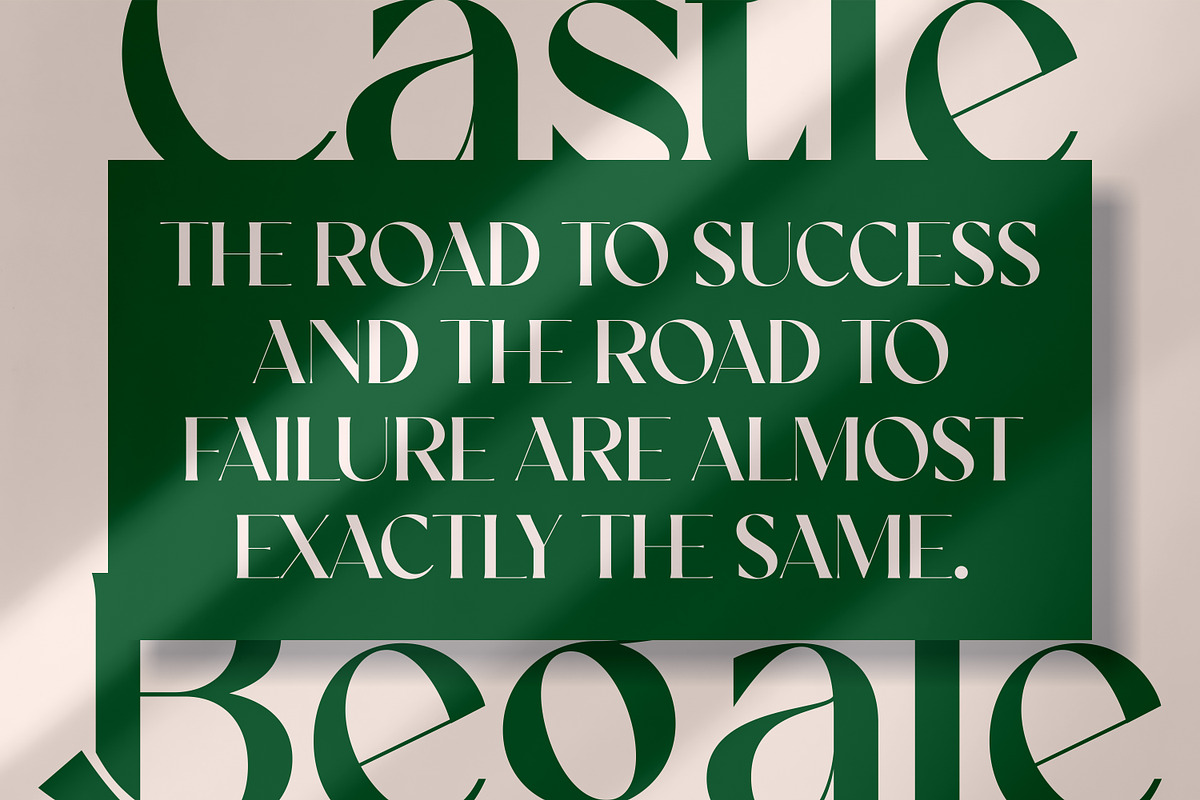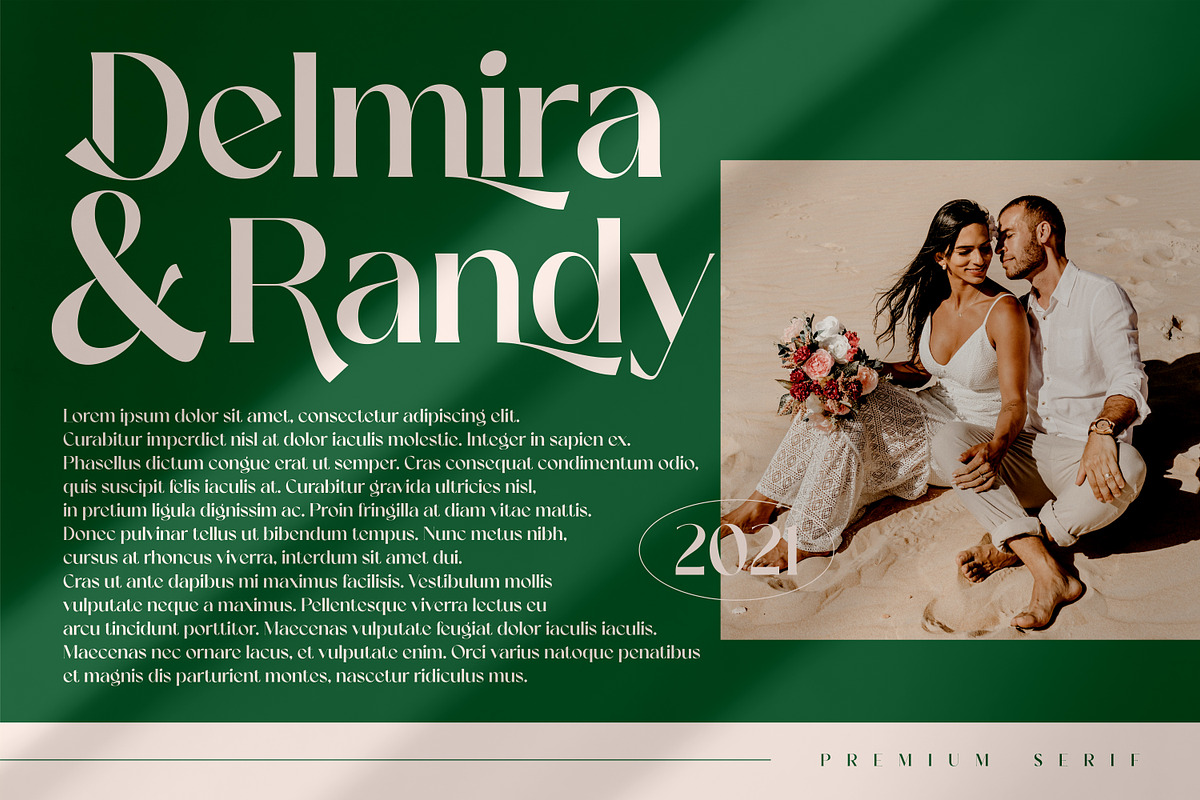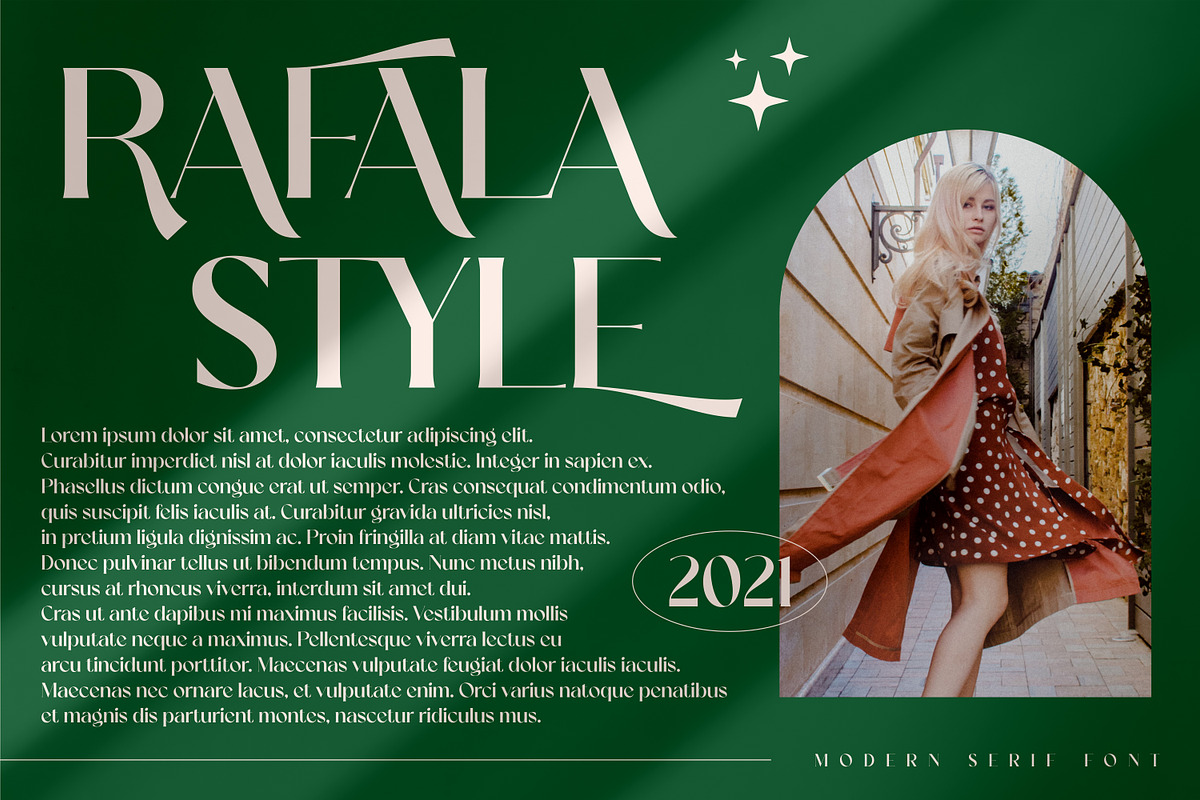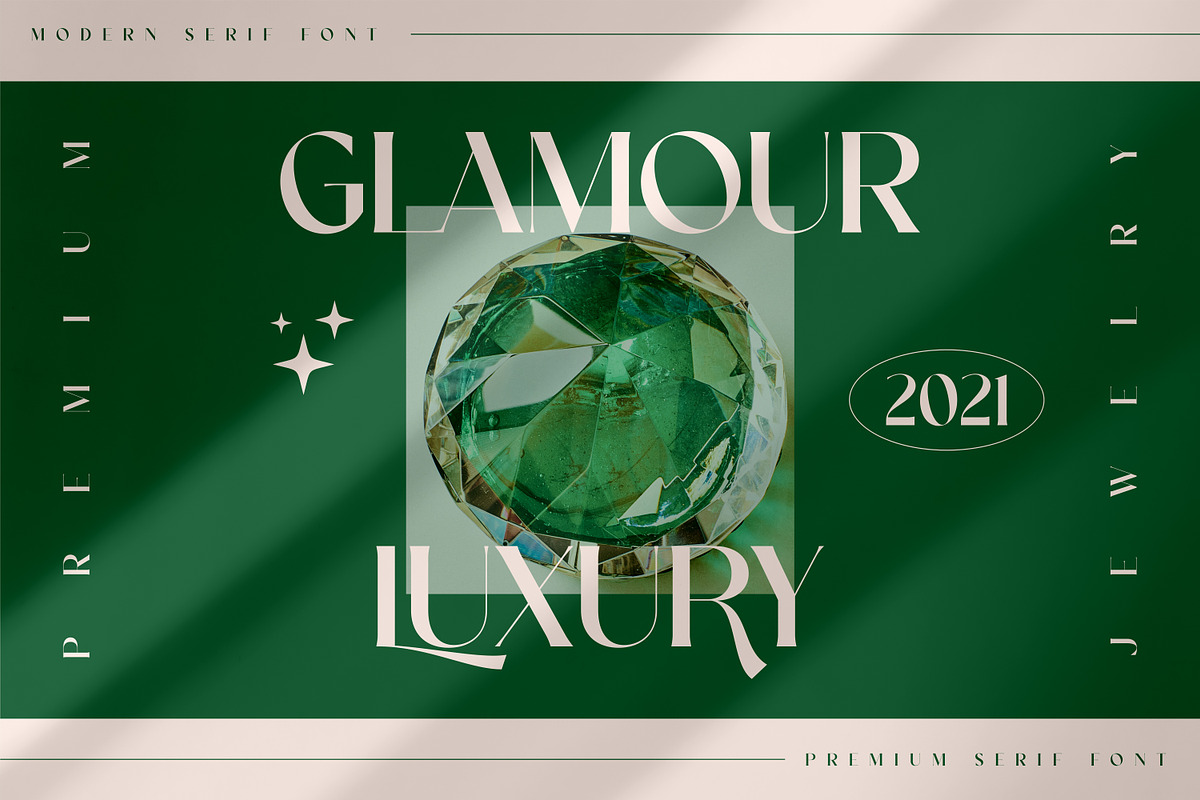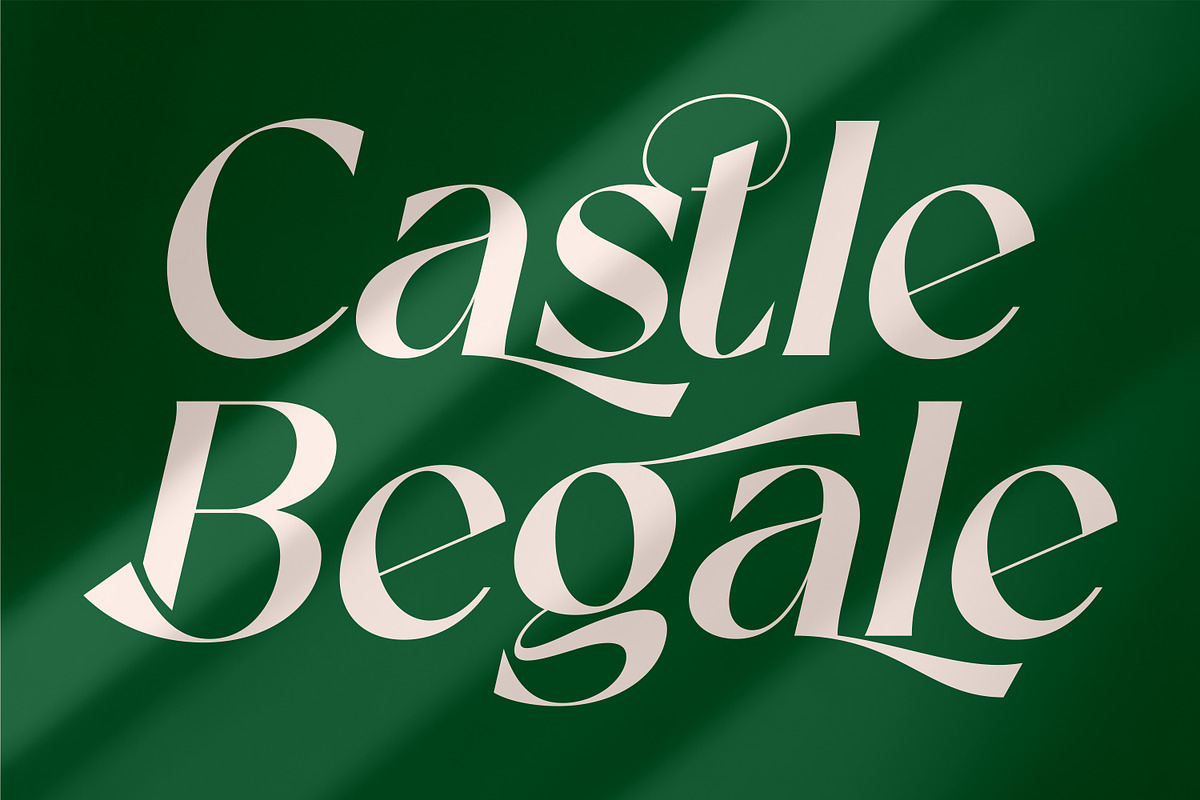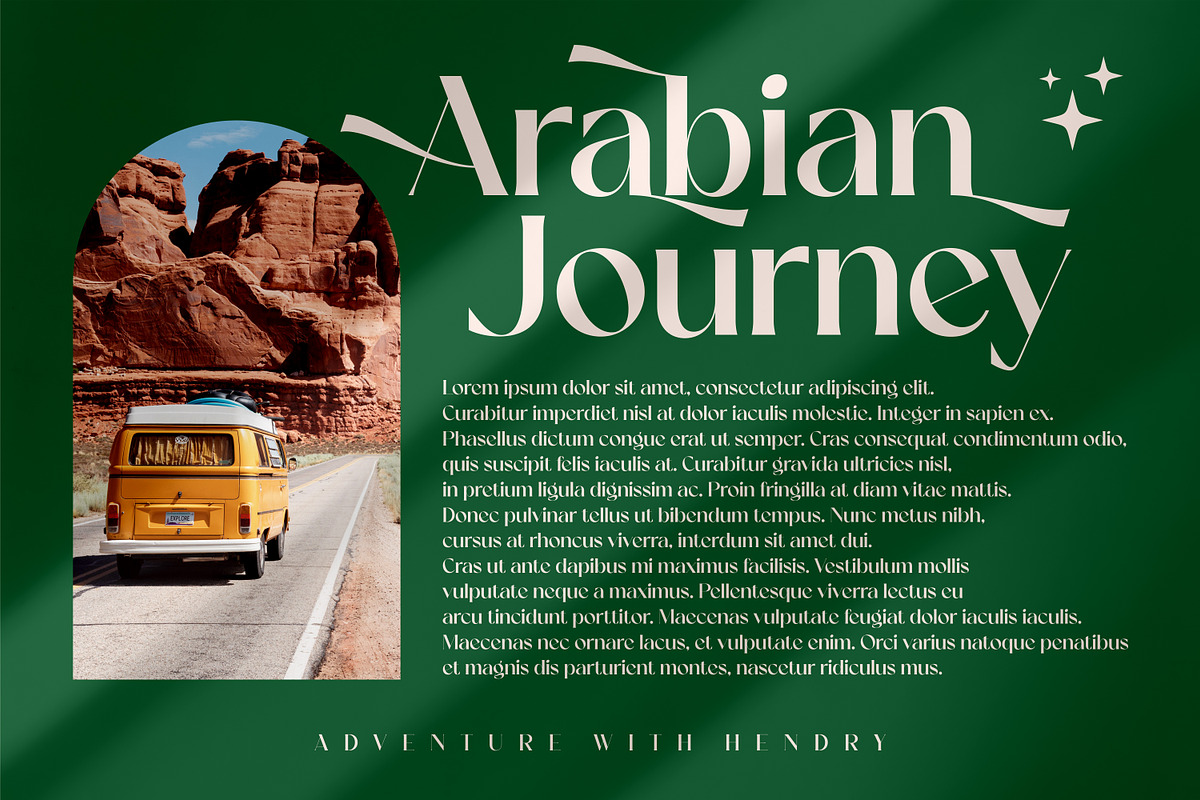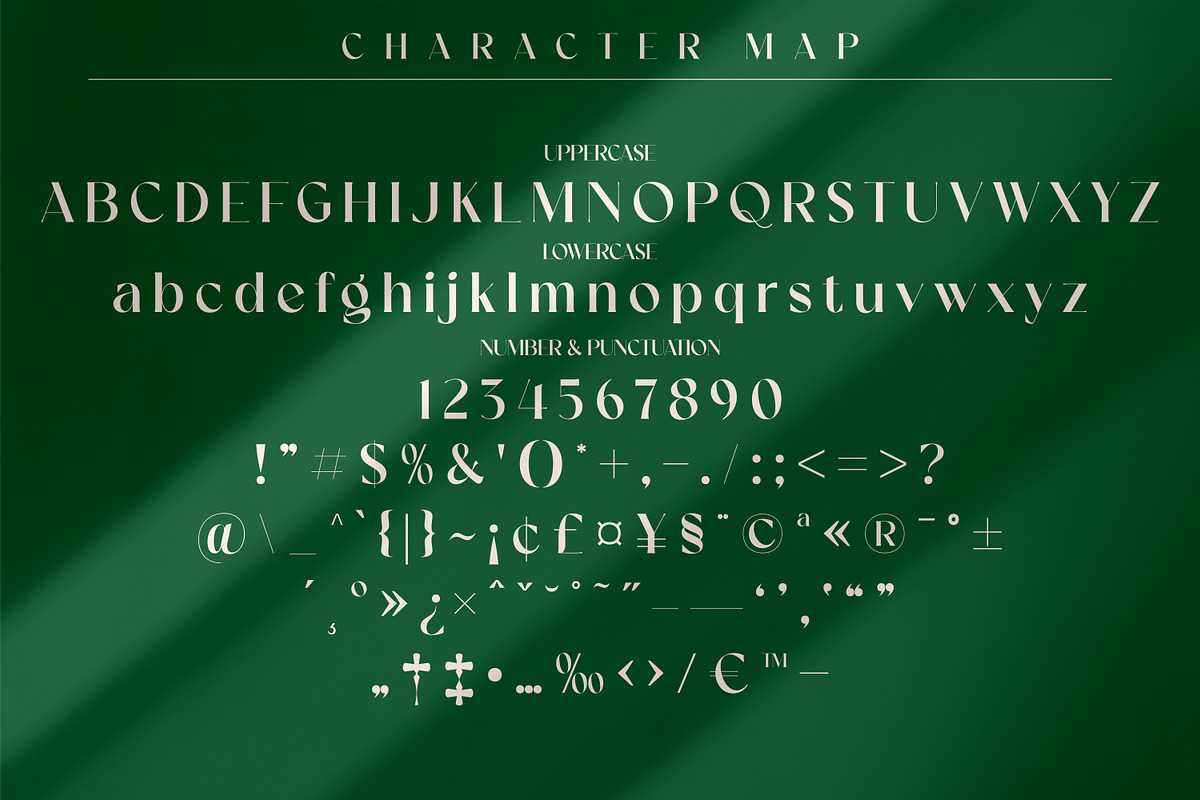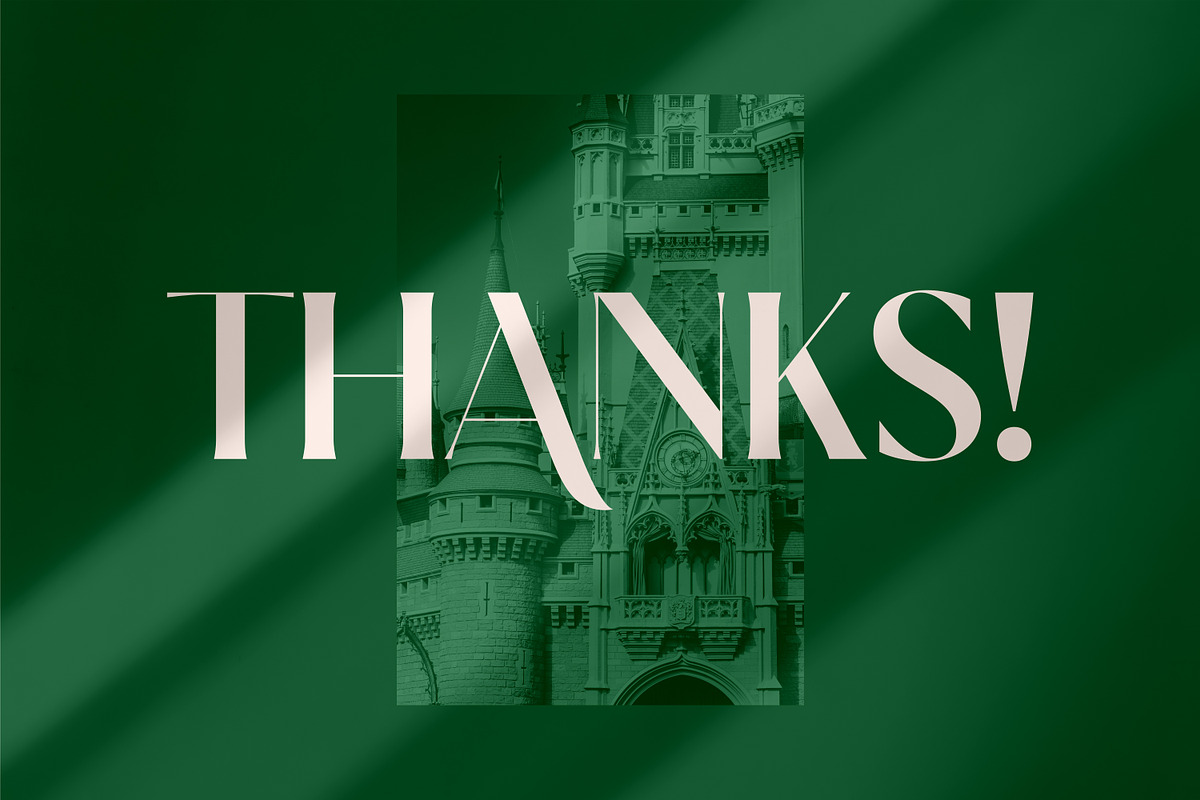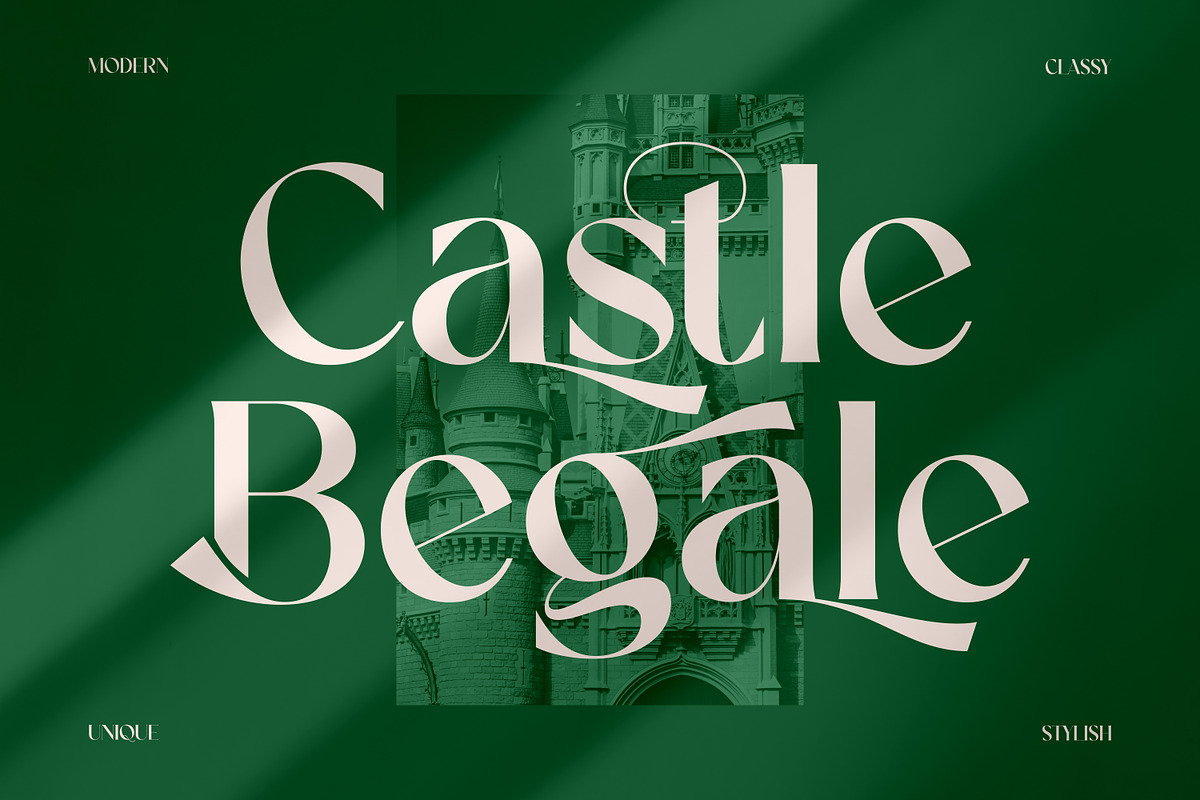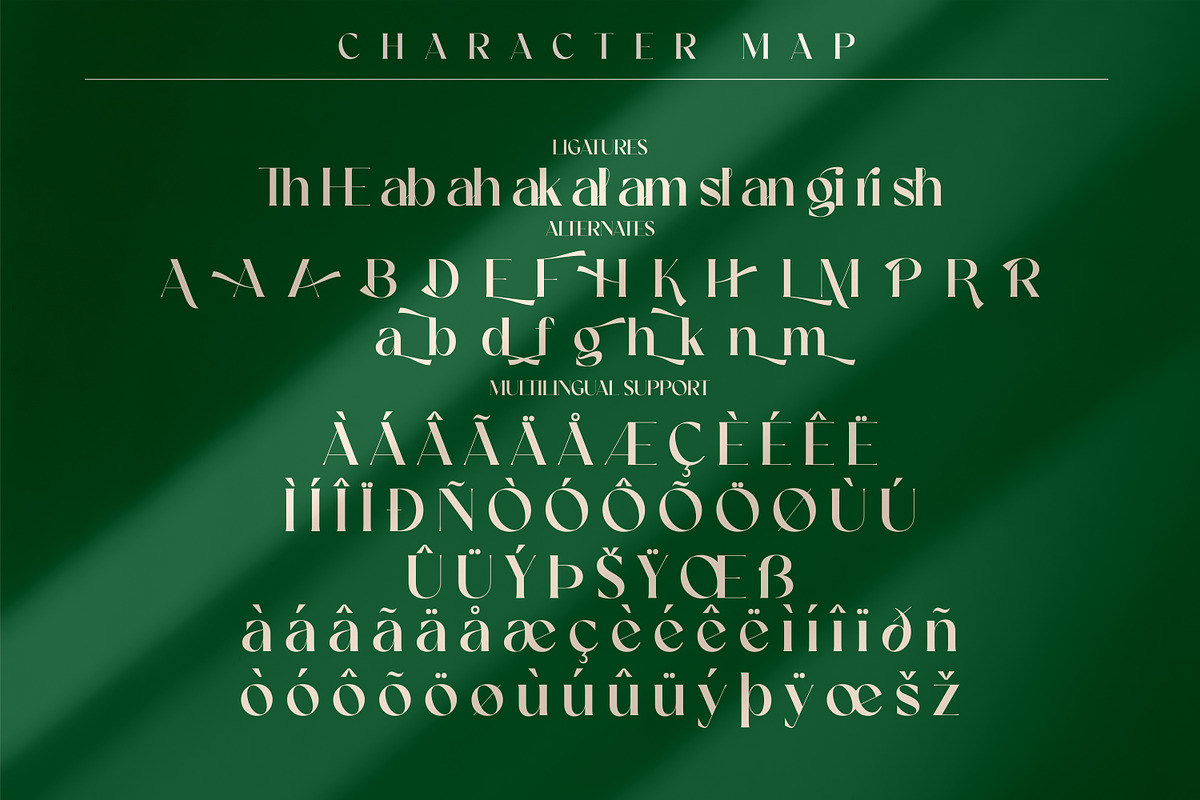
Castle Begale Luxury Serif Font
Proudly present Castle Begale Typeface, created by Storytype, A serif modern and classic typeface that has own unique style & modern look. This typeface is perfect for an elegant & luxury logo, book or movie title design, fashion brand, magazine, clothes, lettering, quotes, and so much more.